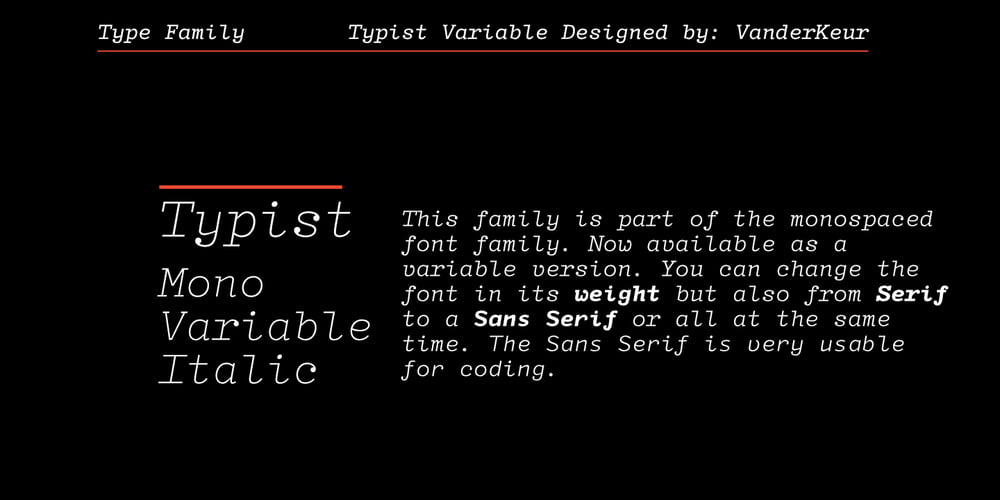
Typist Variable Mono Italic
Typist Variable Mono Italic font
Typist Variable Mono Italic Font Family was designed by Nicolien van der Keur and published by VanderKeur. Typist Variable Mono Italic contains 1 styles and family package options. This variable font is part of the monospaced font family. Now available as a variable version. You can change the font in its weight but also from Sans Serif to a Slab Serif or all at the same time. The Sans Serif is highly usable for coding.